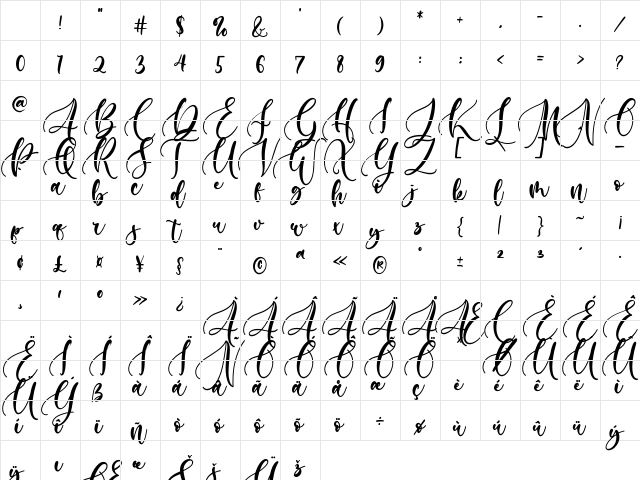
Complete Hillary - Beauty and Lovely Fon Regular glyph index. Displaying only characters natively supported by Hillary - Beauty and Lovely Fon Regular font.
Hillary - Beauty and Lovely Fon is a composed and adaptable typeface that performs quietly and consistently across a wide range of design contexts.